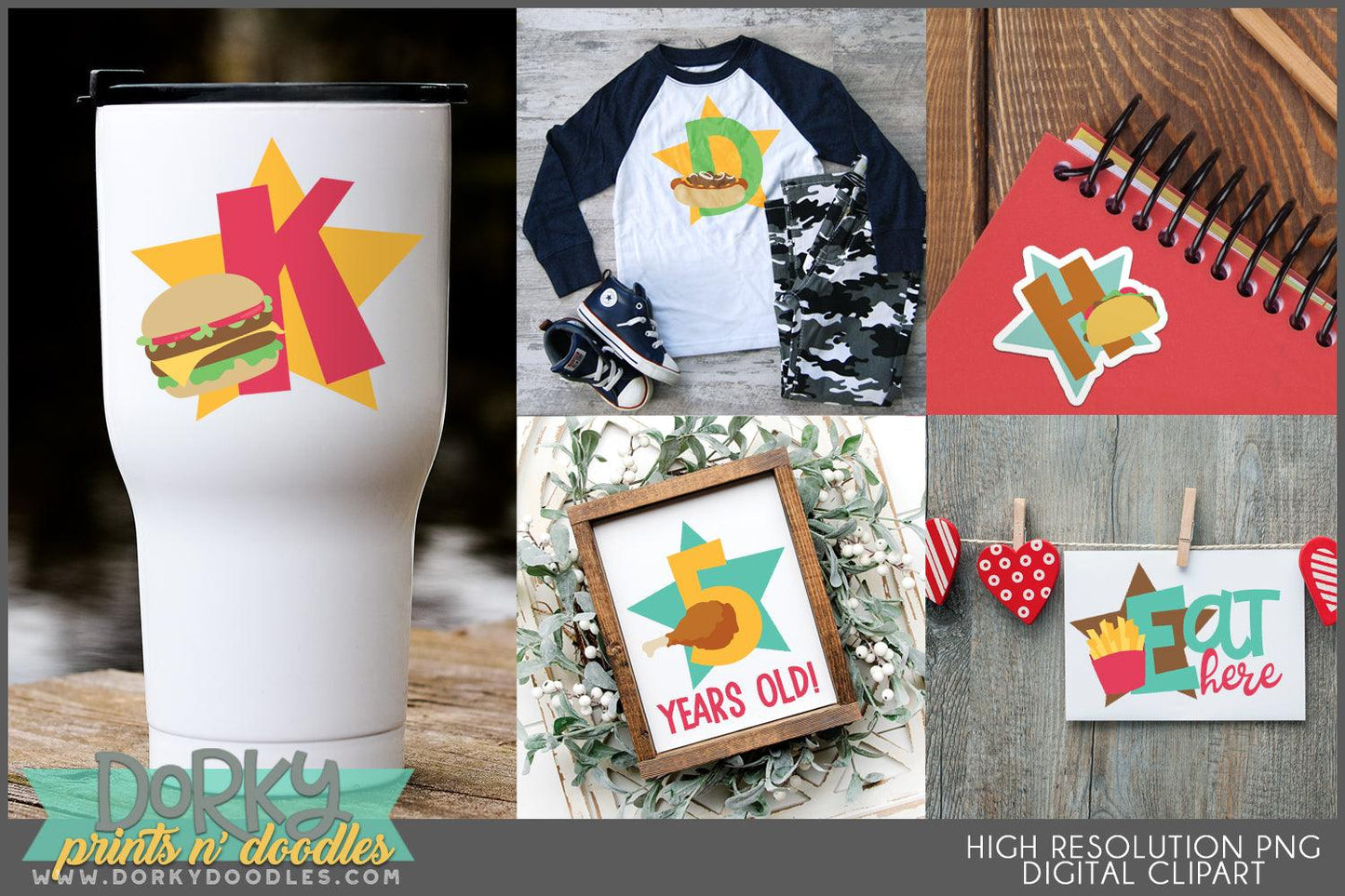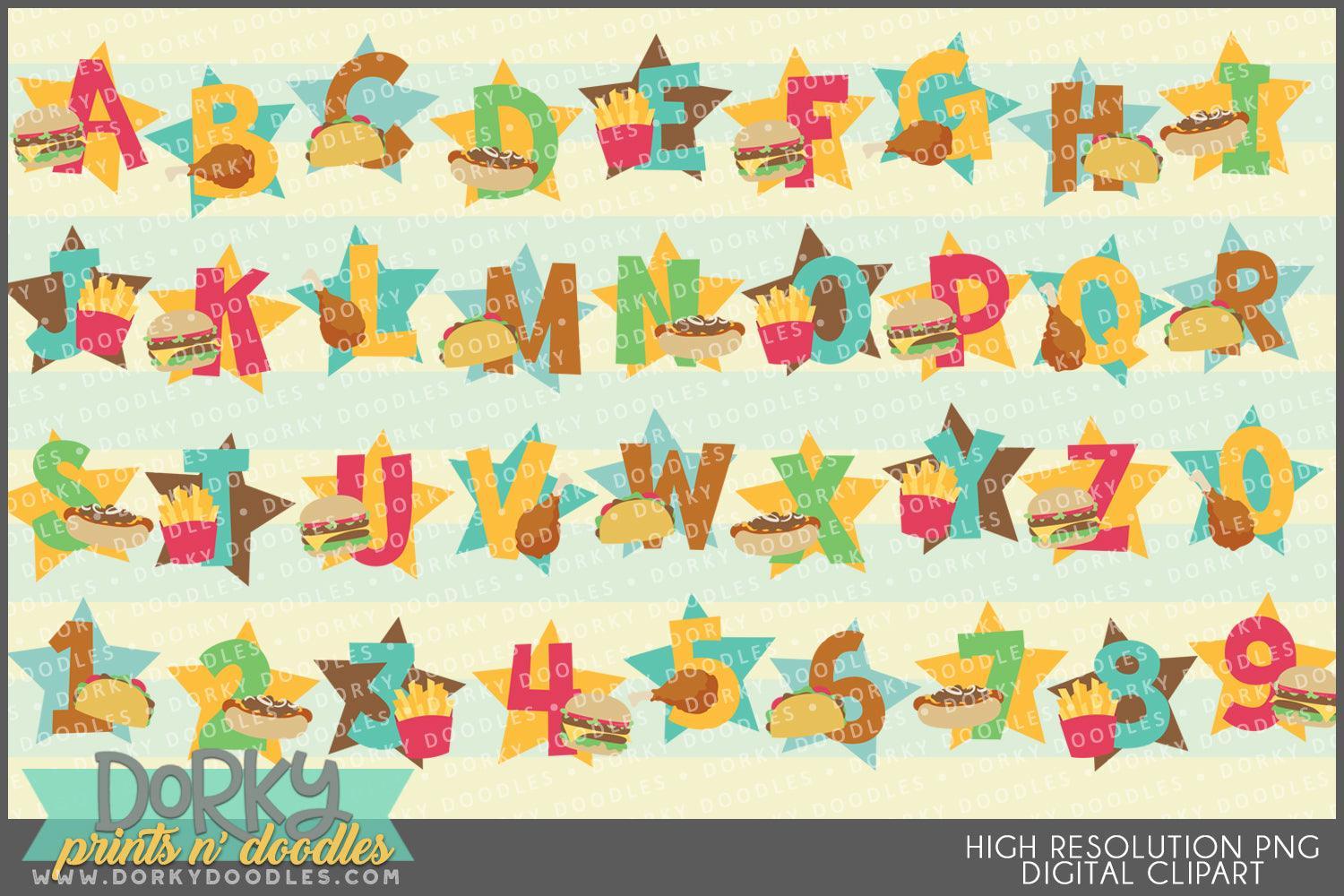
Fast Food Alphabet Clipart
The images you get in this set are:
• the full alphabet and numbers 0-9 using hamburgers, hot dogs, tacos, french fries, and fried chicken